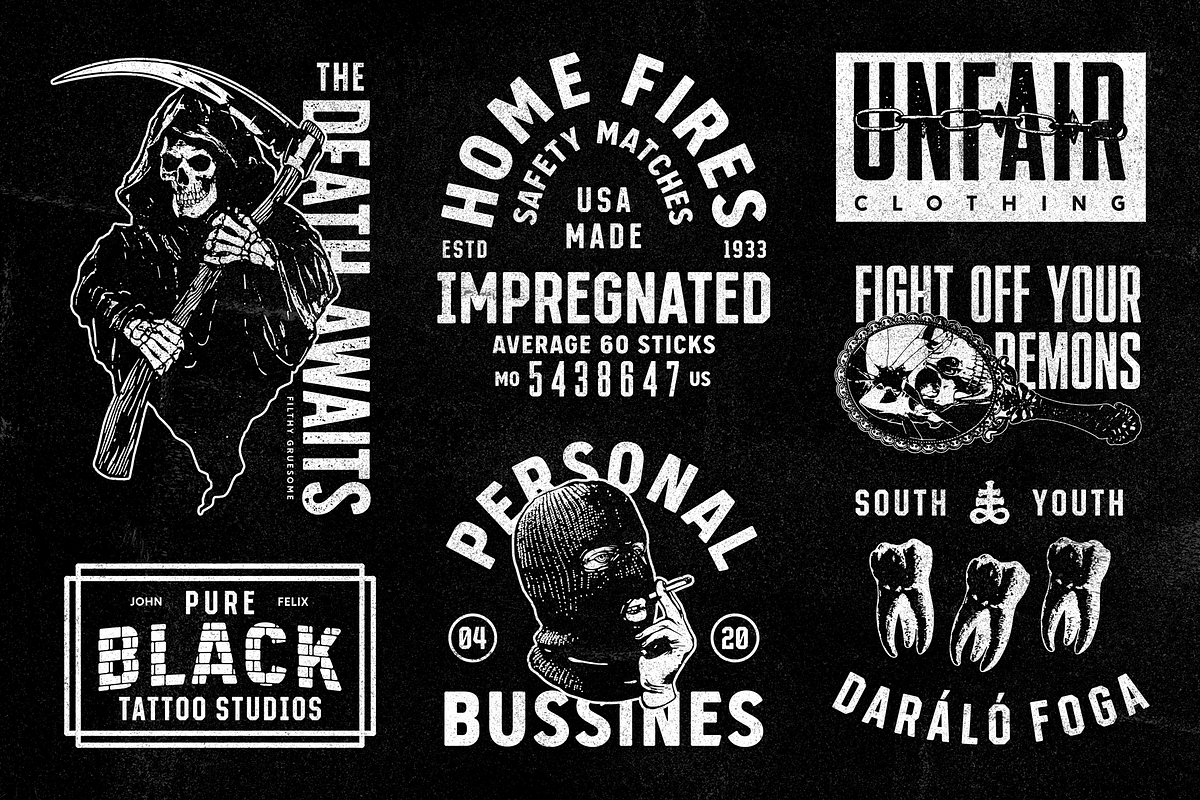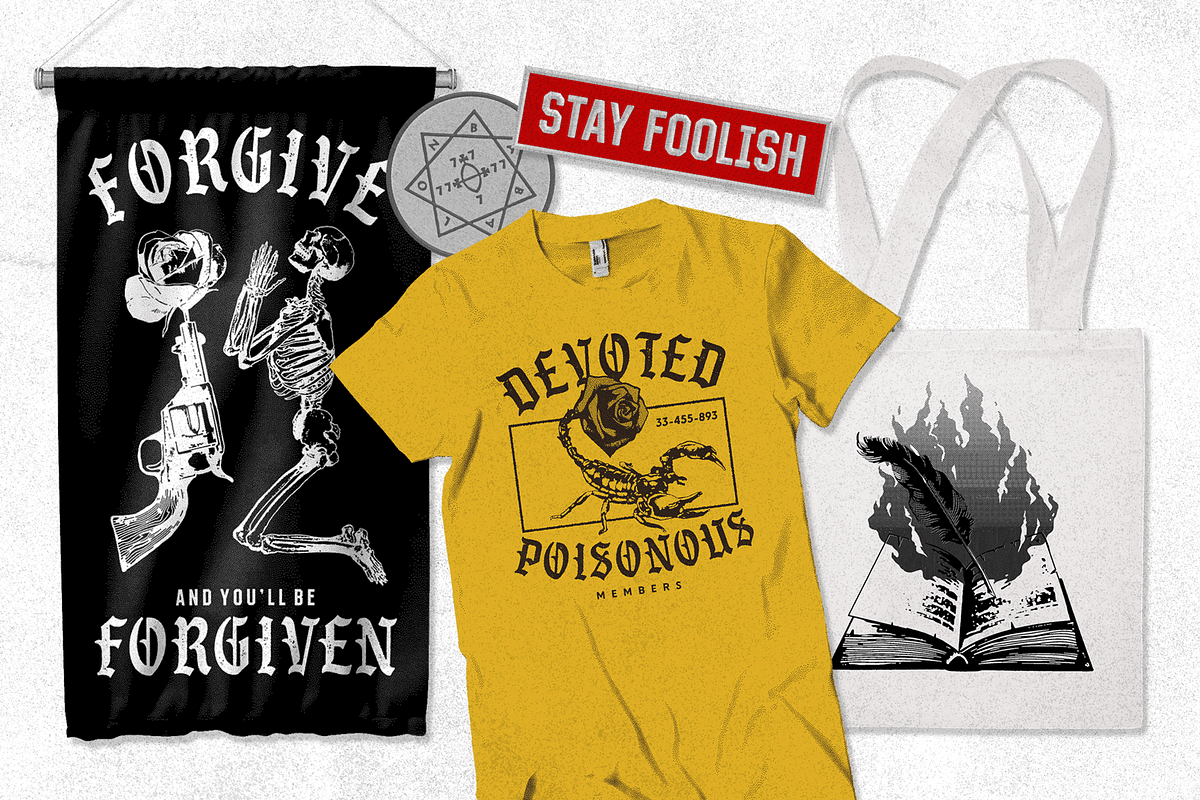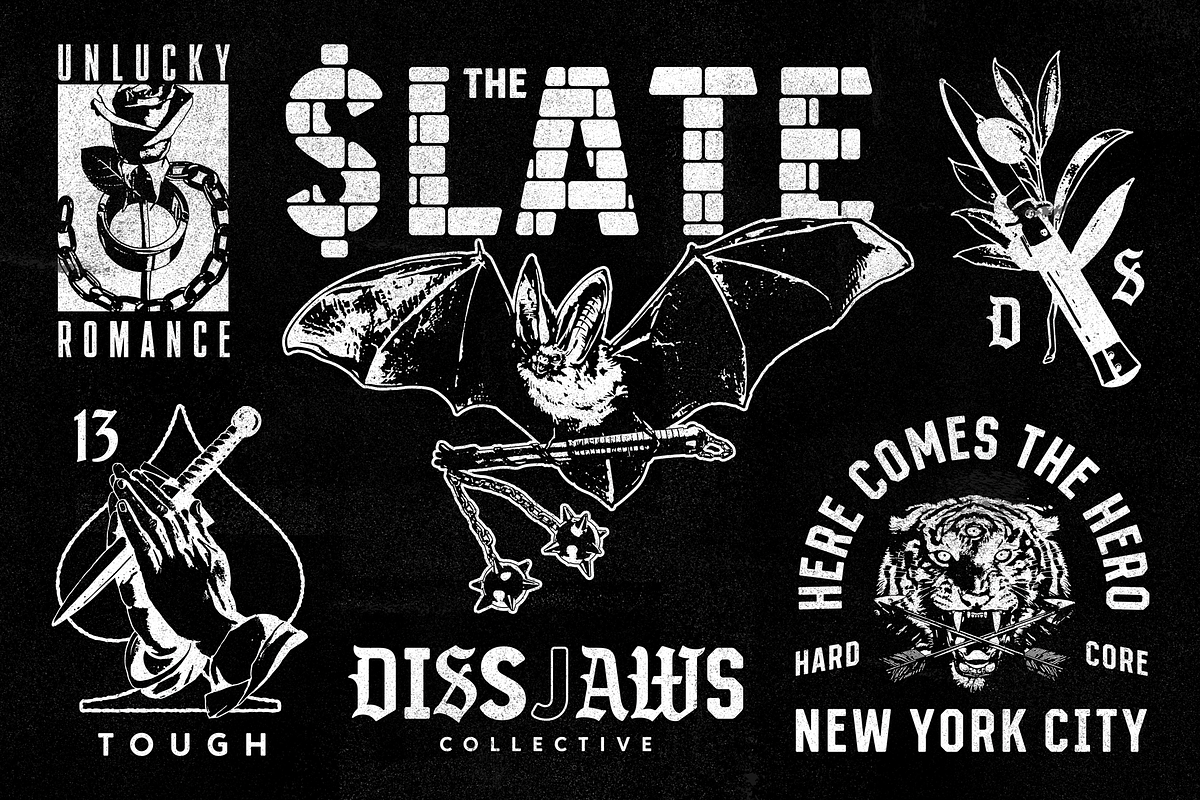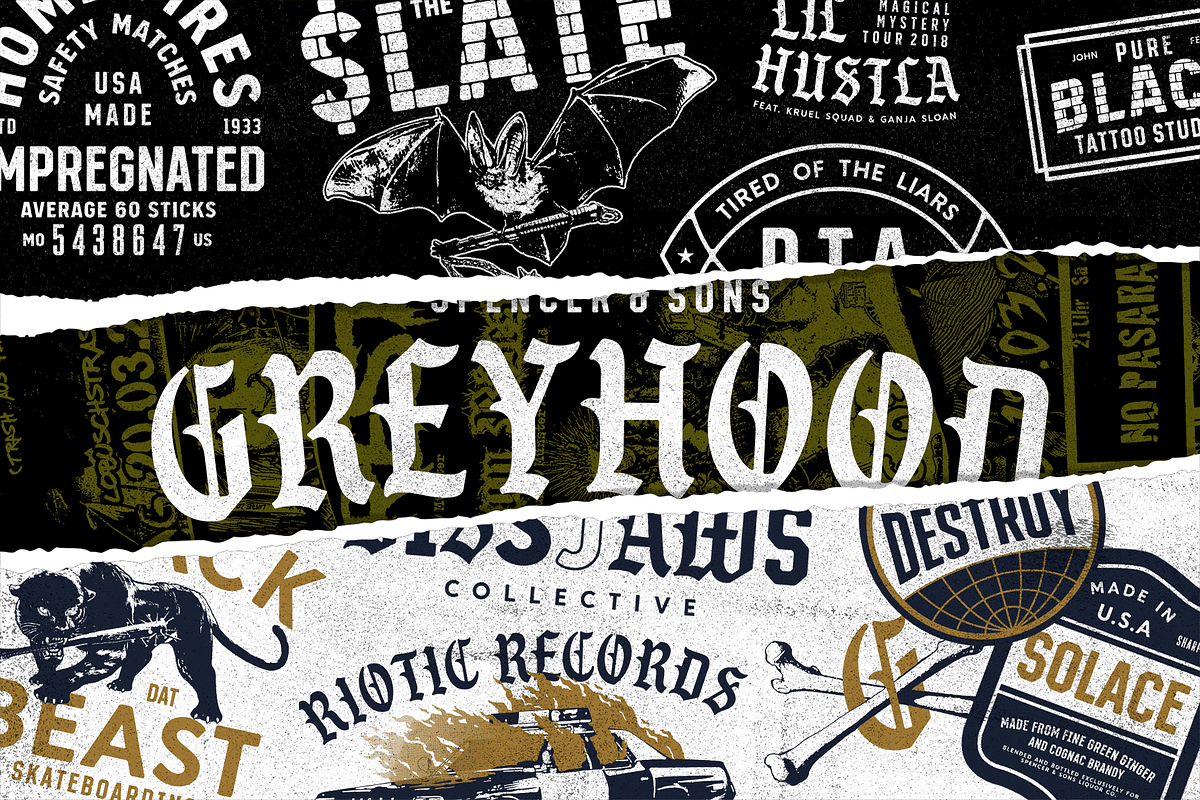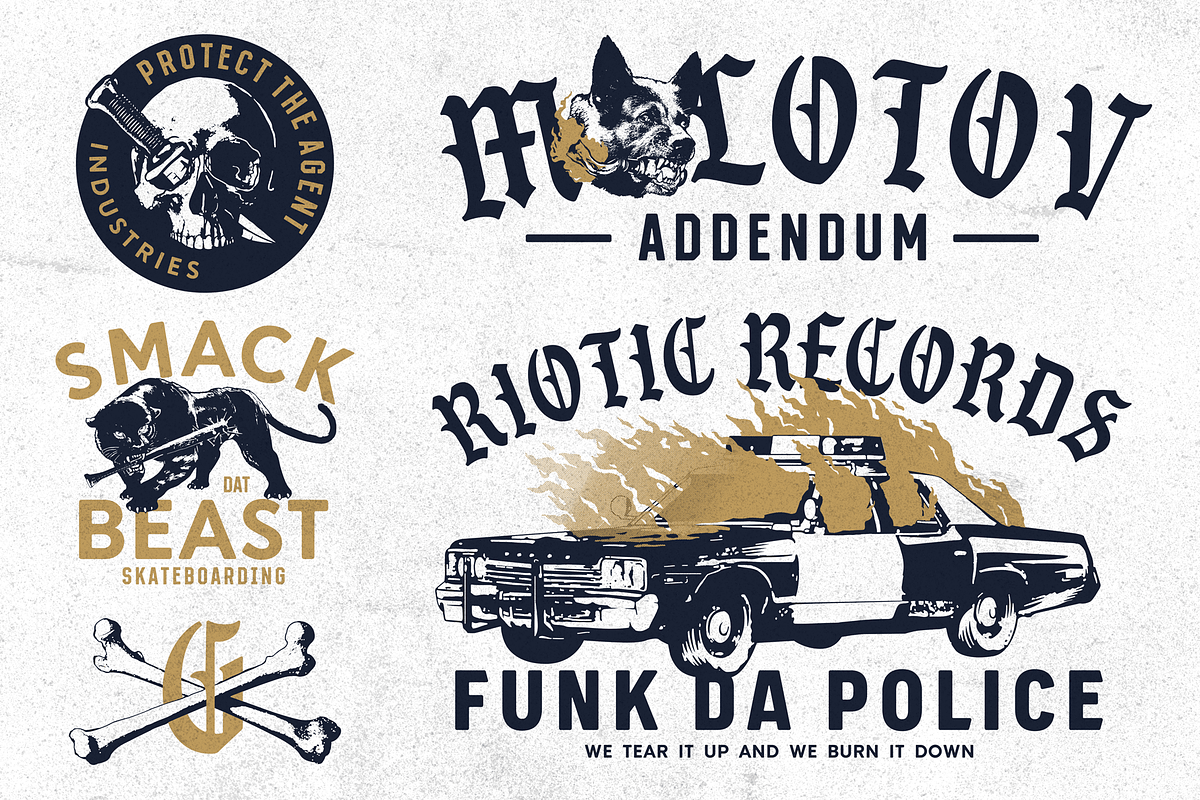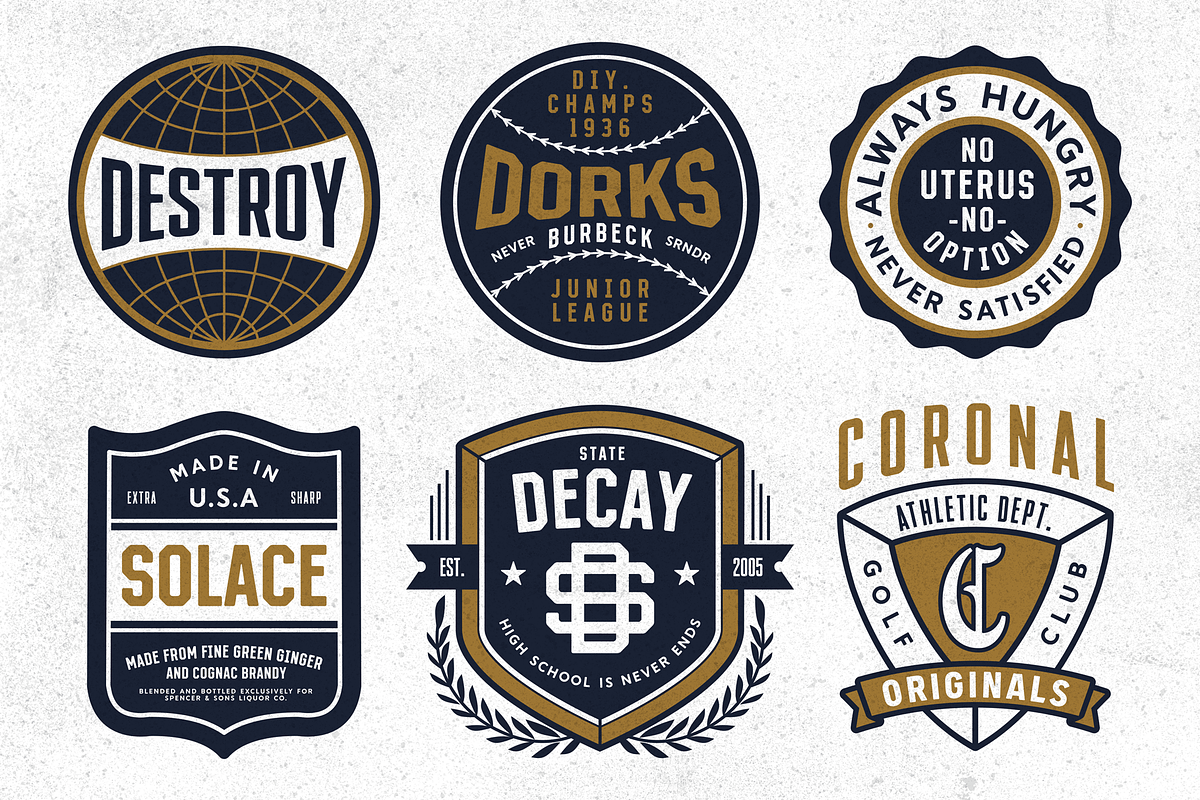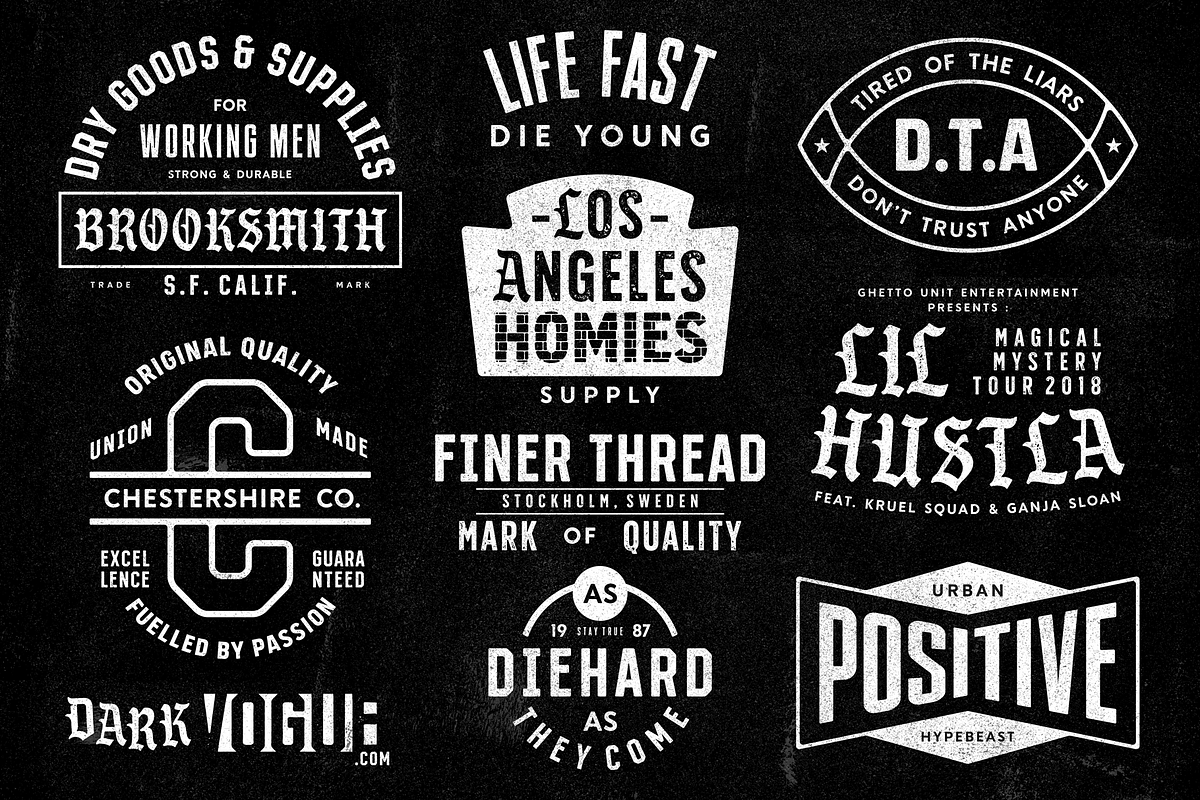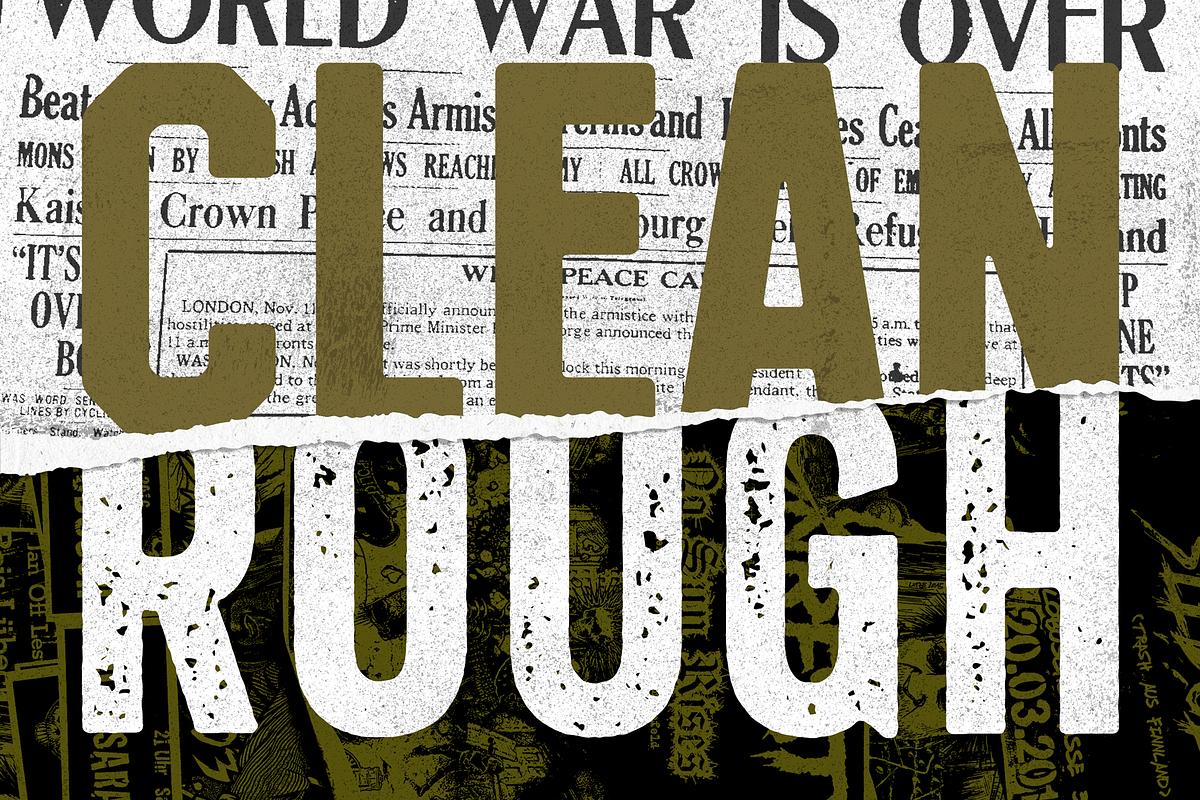
S&S GreyHood Font Bundles
S&S GreyHood Font Family
Greyhood Font Family inspired by the occult cultural symbol, There are many symbolisms and occult references that stand out in the music culture today. From historical artifacts to the music artists today, it seems the occult world has never really gone away, but in fact has become more flagrant and blatant. Available in 13 font. Each typeface has a Textured Version, plus an outlined and brick effect. Each typeface allowing them to pair very well with eachother. and also the extras of highly detailed vector with the 'low fidelity' vintage style. perfect for everyone who'd like to add a mystical designs. ideal for gigs poster, band logotype, apparel designs, and many more.
Badges (Non Editable Text) & Vector Illustration in The Posters
all the designs contained in the poster using GreyHood font family
Suggestion : This font is a terrific toolbox for display purposes
S&S GreyHood Font Bundles by Spencer & Sons Co. fits naturally into Branding, posters, packaging, typography.